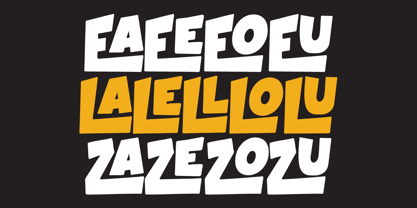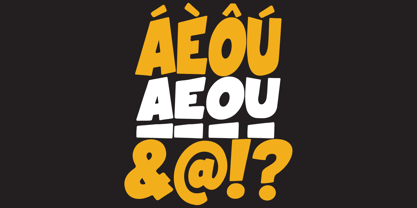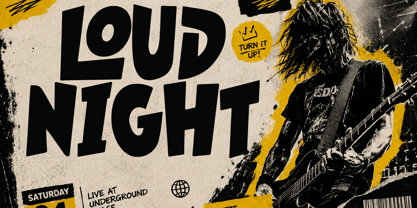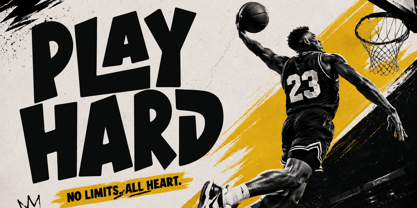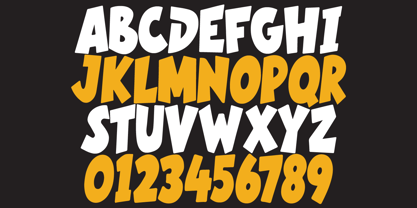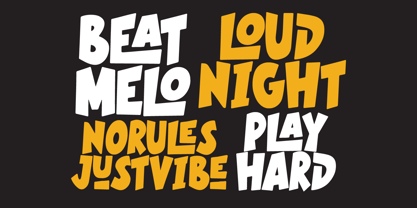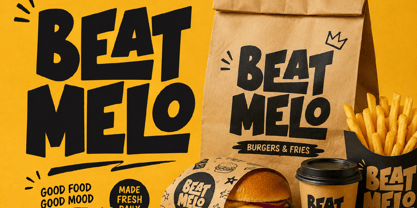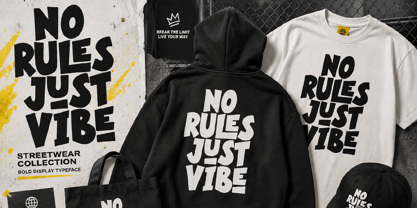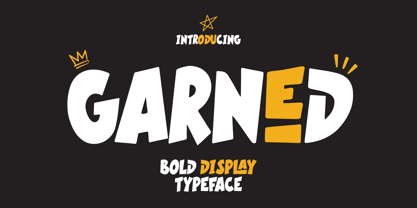
Garned
by Typebae
The Garned Font Family was designed by Iqbal Pauji and published by Typebae. Garned contains 2 styles and family package options. More about this family
Garned is a bold and playful display typeface with chunky, irregular letterforms, unexpected angles, and a slightly slanted character. Its expressive shapes are designed to bring strong visual impact to posters, streetwear, sports graphics, music artwork, branding, packaging, advertising, and more.
- All Caps and Accented glyphs
- Numbers & punctuation
- Ligatures and Underline Glyphs (AEOU)